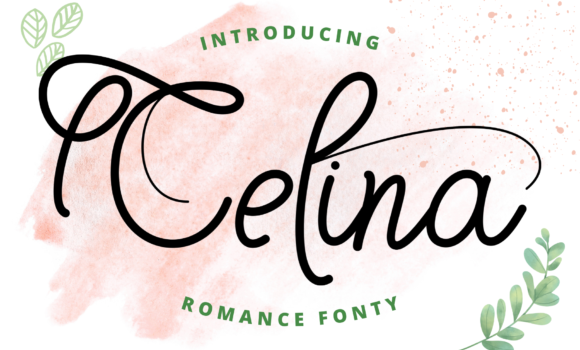
celina
Celina Font – Free Download Introduction to Celina Font Celina is a beautiful light handwritten font with a unique feel and a stunning impact. 📸 Preview Gallery 6 images 📌 Product Name Celina Font 👤 Author andreyfontdesign 📂 Category Explore